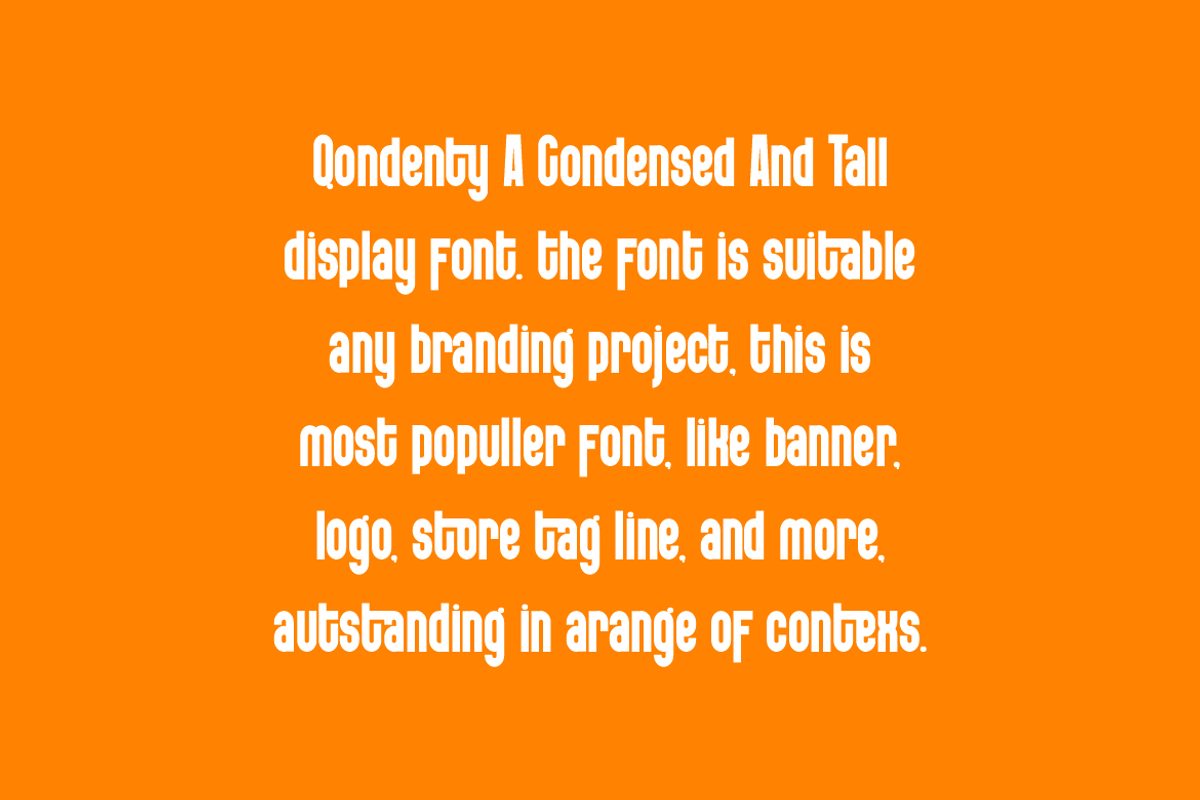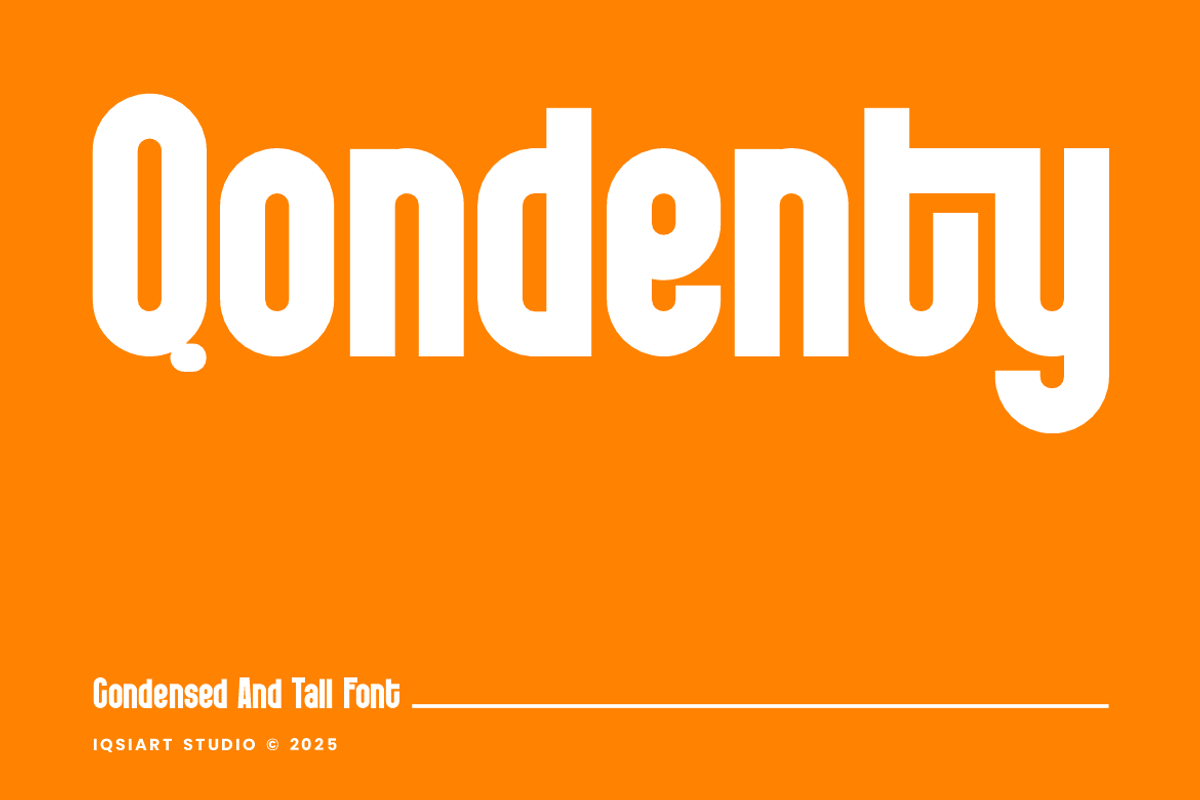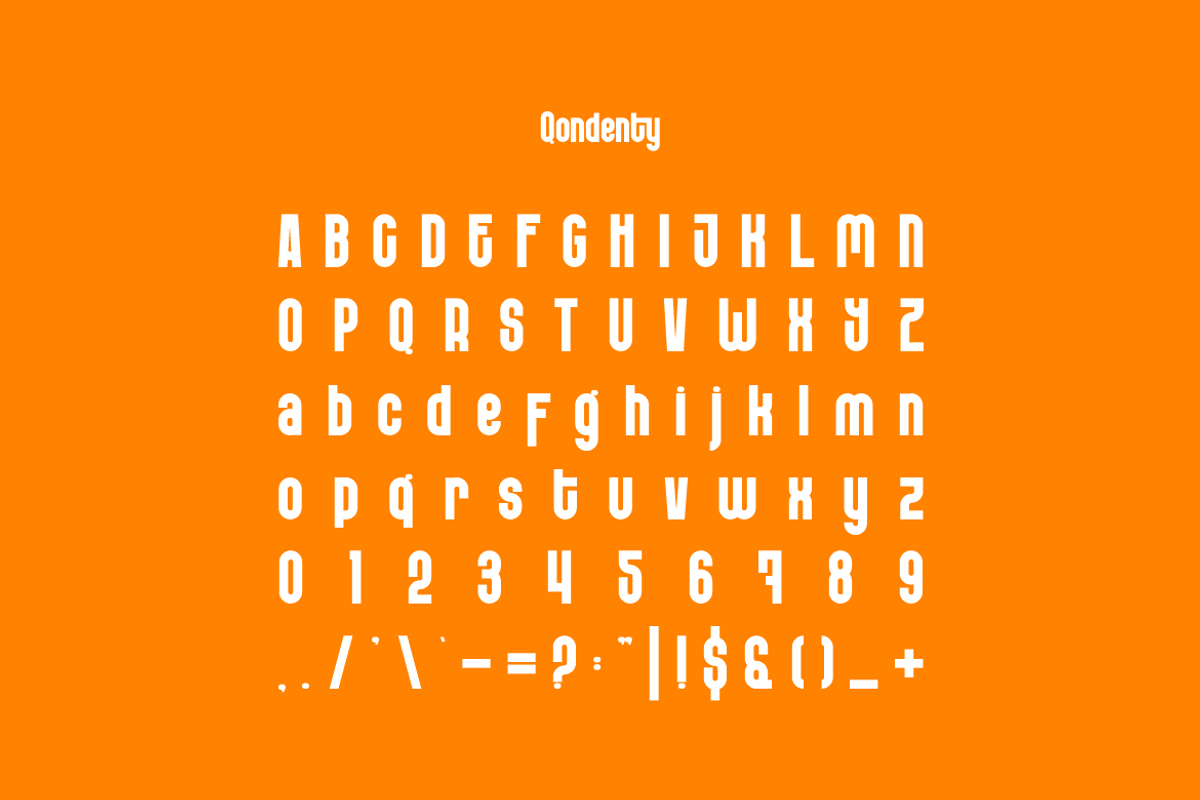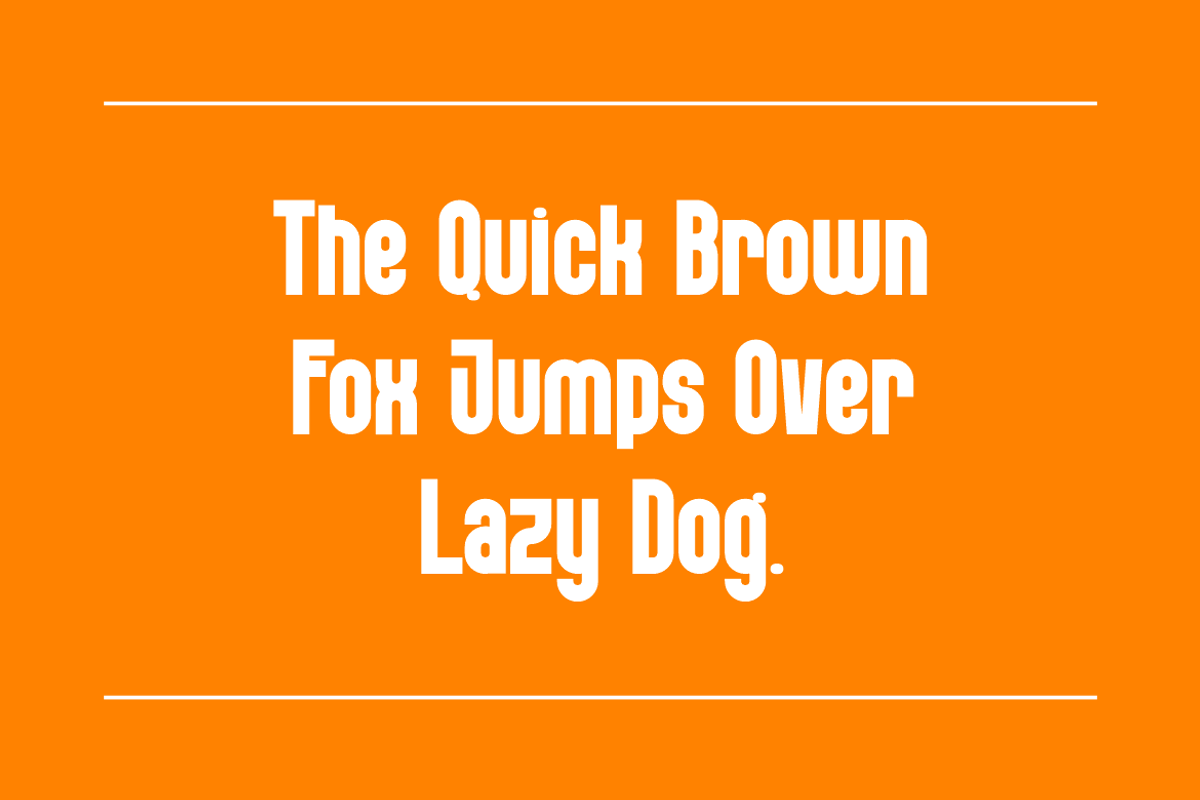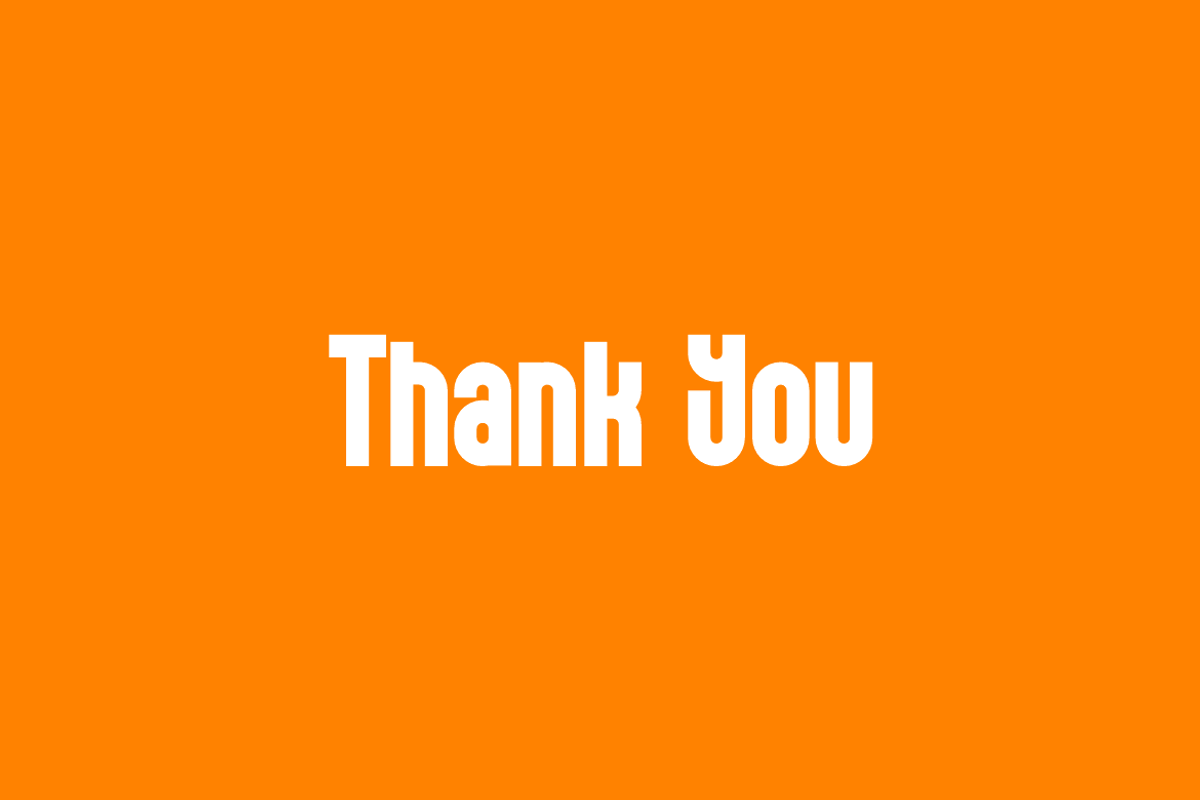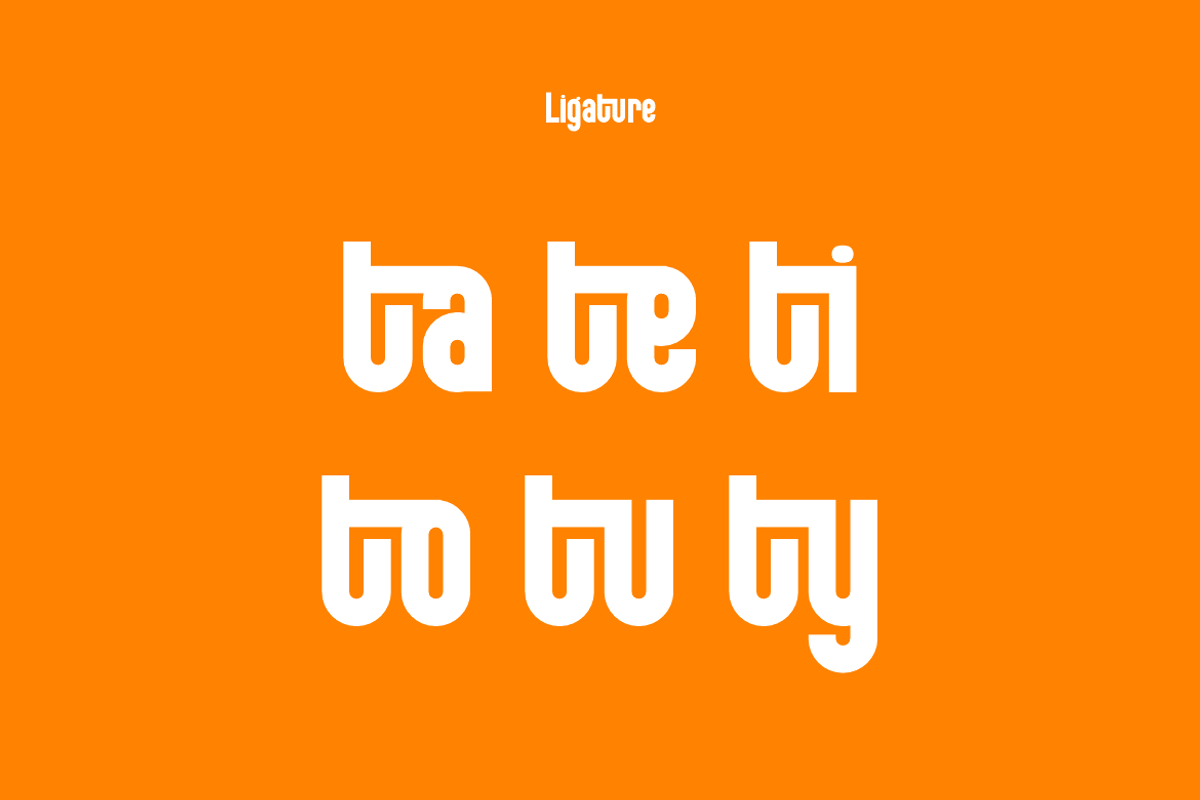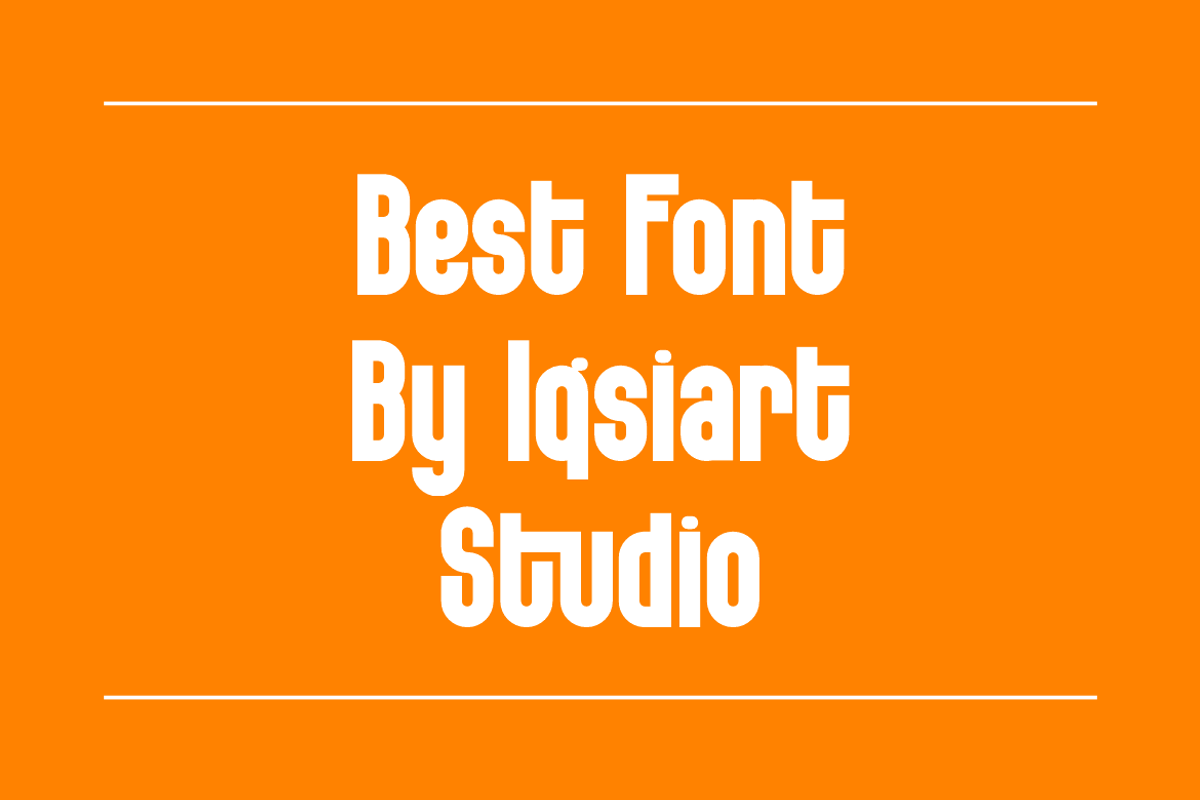
Qondenty - Condensed Tall Font
Qondenty Font is a best and authentic display font. This font can be used for your various needs. We provide various themes and font styles. visit our profile to get a wide variety of themes and different font styles you need.